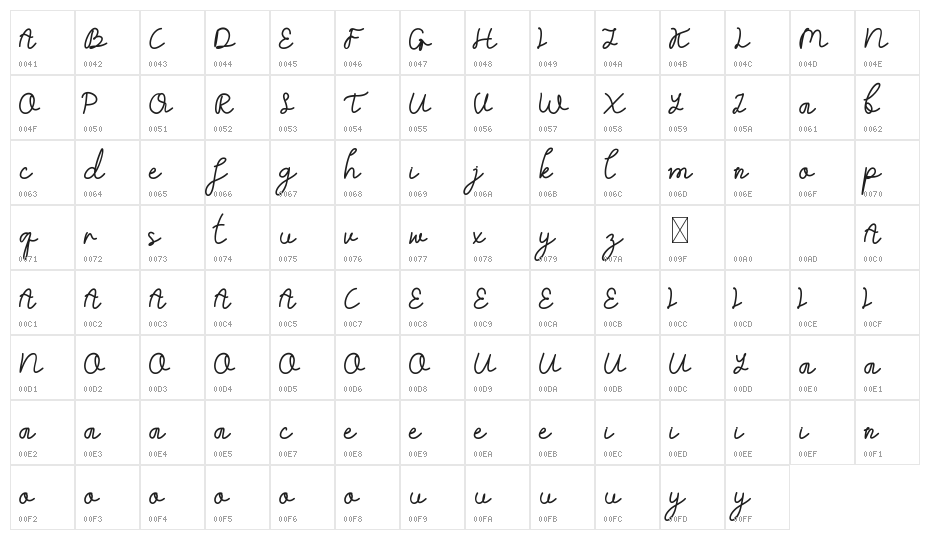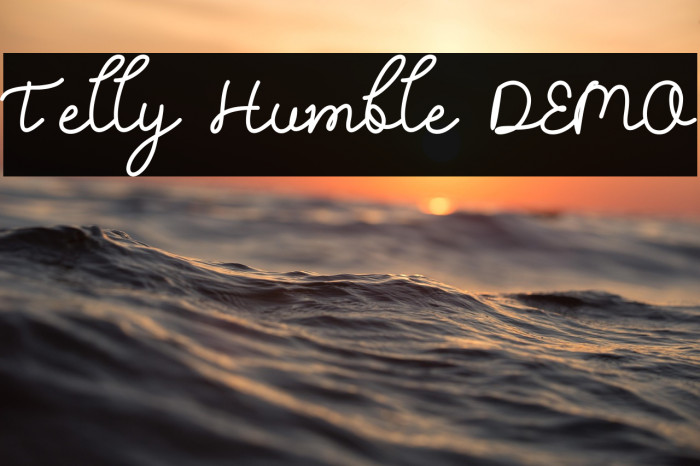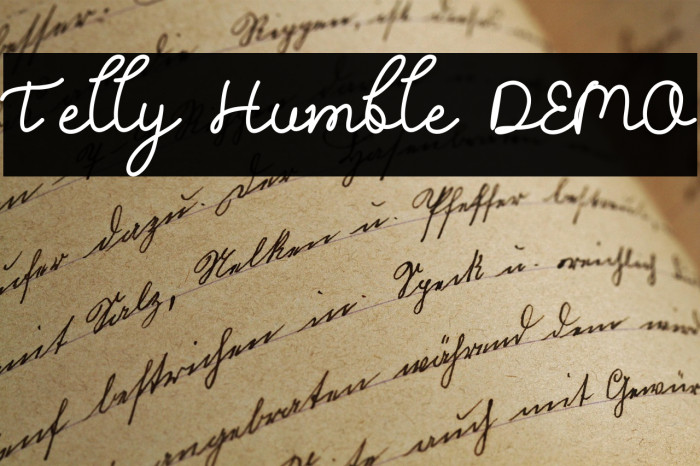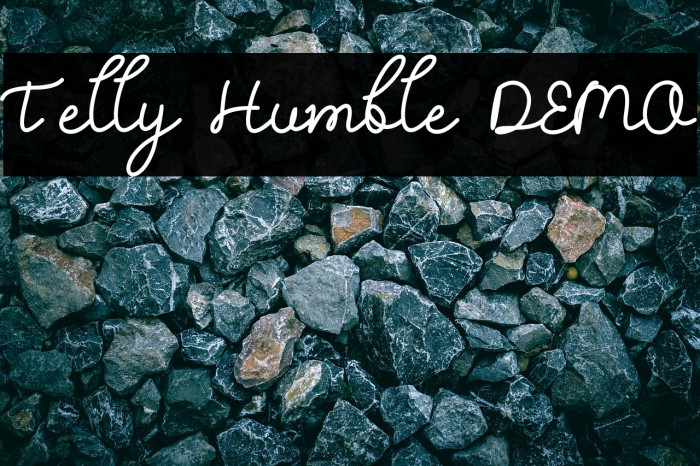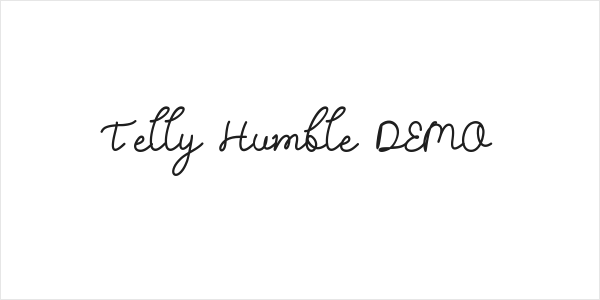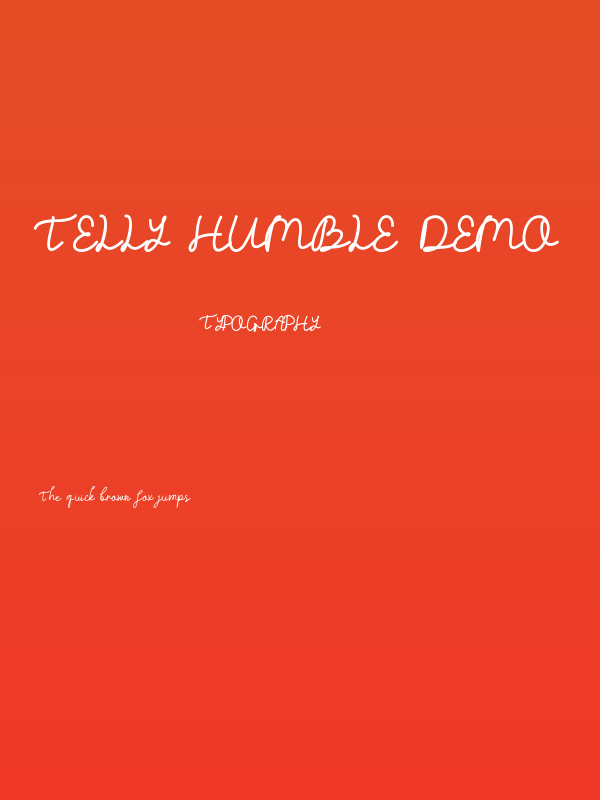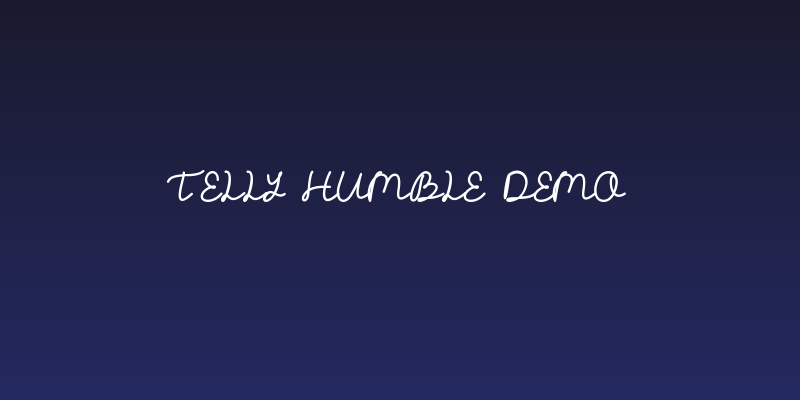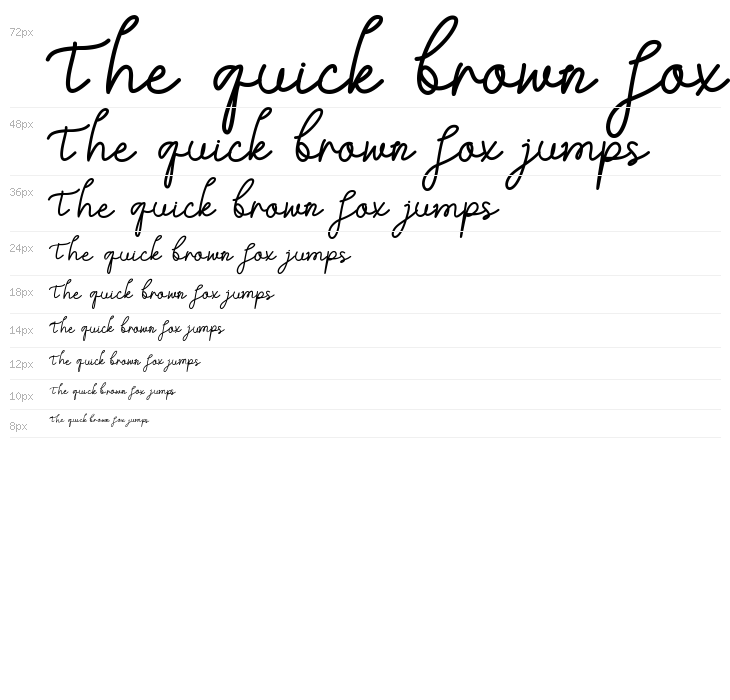
Telly Humble DEMO Font
Telly Humble DEMO Description
This font exudes a casual and flowing handwritten style, characterized by its smooth, cursive strokes that connect seamlessly. The letters are crafted with a consistent stroke width, giving it a balanced and harmonious appearance. The uppercase and lowercase letters maintain a cohesive look, with the uppercase letters slightly larger and more pronounced. The font's design is both elegant and approachable, making it suitable for a variety of creative projects. Its fluidity and natural flow make it ideal for conveying a personal touch, while its readability ensures it remains functional.
Overall StyleCasual, Elegant
Use CaseLogos, Invitations, Personal Branding
Proposed ProjectsIdeal for wedding invitations, greeting cards, personal branding, and social media graphics.